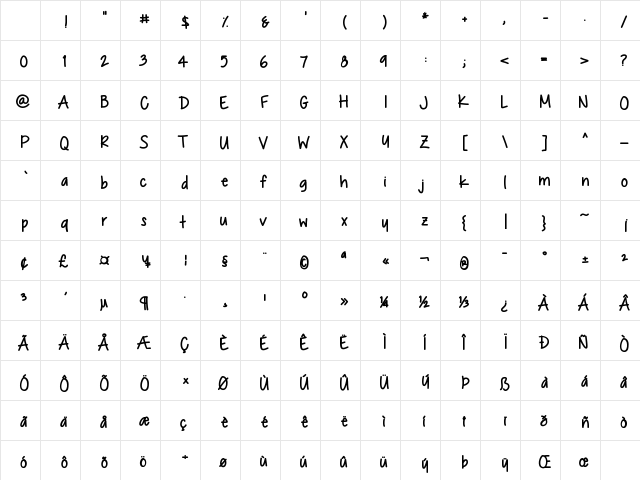
Complete ChocolateCoveredRaindrops Medium glyph index. Displaying only characters natively supported by ChocolateCoveredRaindrops Medium font.
ChocolateCoveredRaindrops is a composed and adaptable typeface that performs quietly and consistently across a wide range of design contexts.